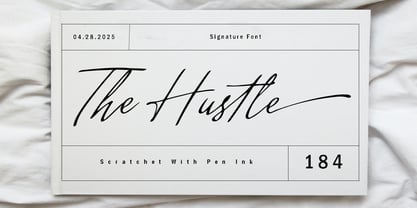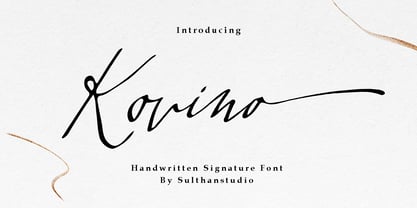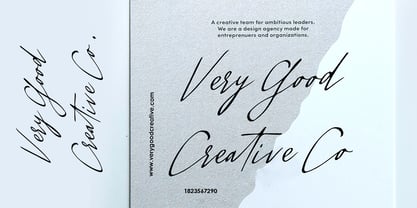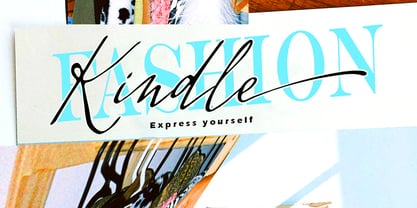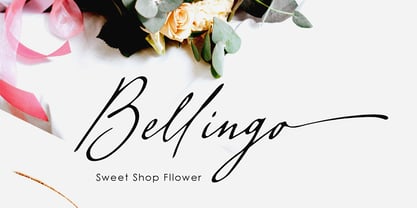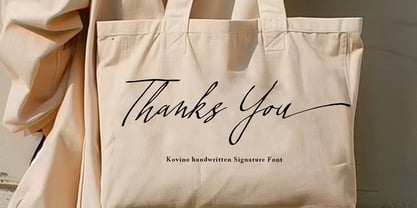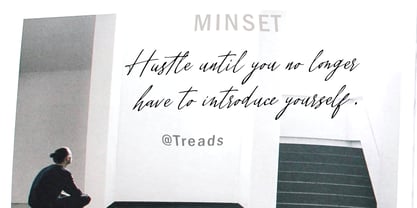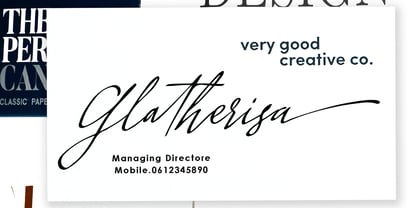
Kovino
by Sulthan Studio
The Kovino Font Family was designed by Nasrullah and published by Sulthan Studio. Kovino contains 1 styles. More about this family
Immerse yourself in the organic splendor of the Natural Ink Signature font. It's an artistic embodiment of handwritten signature beauty, personifying originality at its finest. Its flexible form is easily adaptable, making it the perfect tool for infusing a personal essence into greeting cards, boosting your social media persona, or lending an exclusive flair to product titles. Vibrantly elevate your creative projects with the eclectic allure and raw refinement of the Natural Ink Signature font.